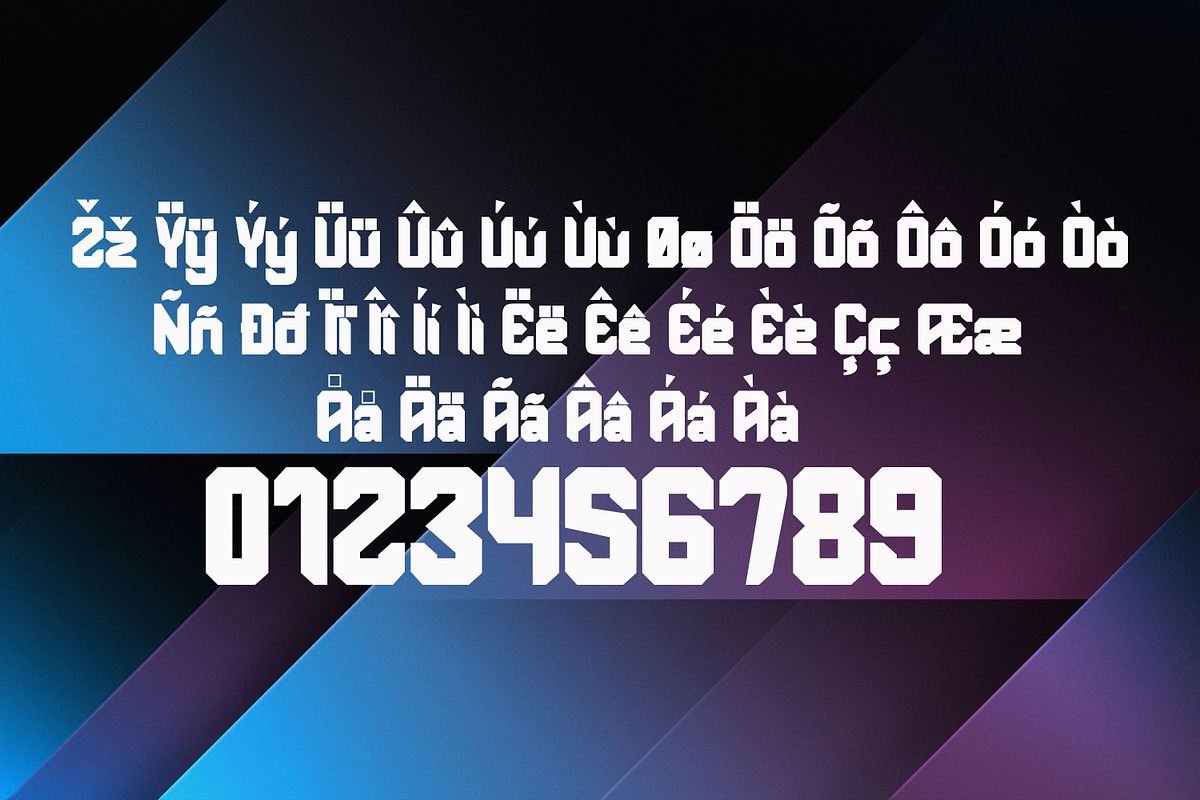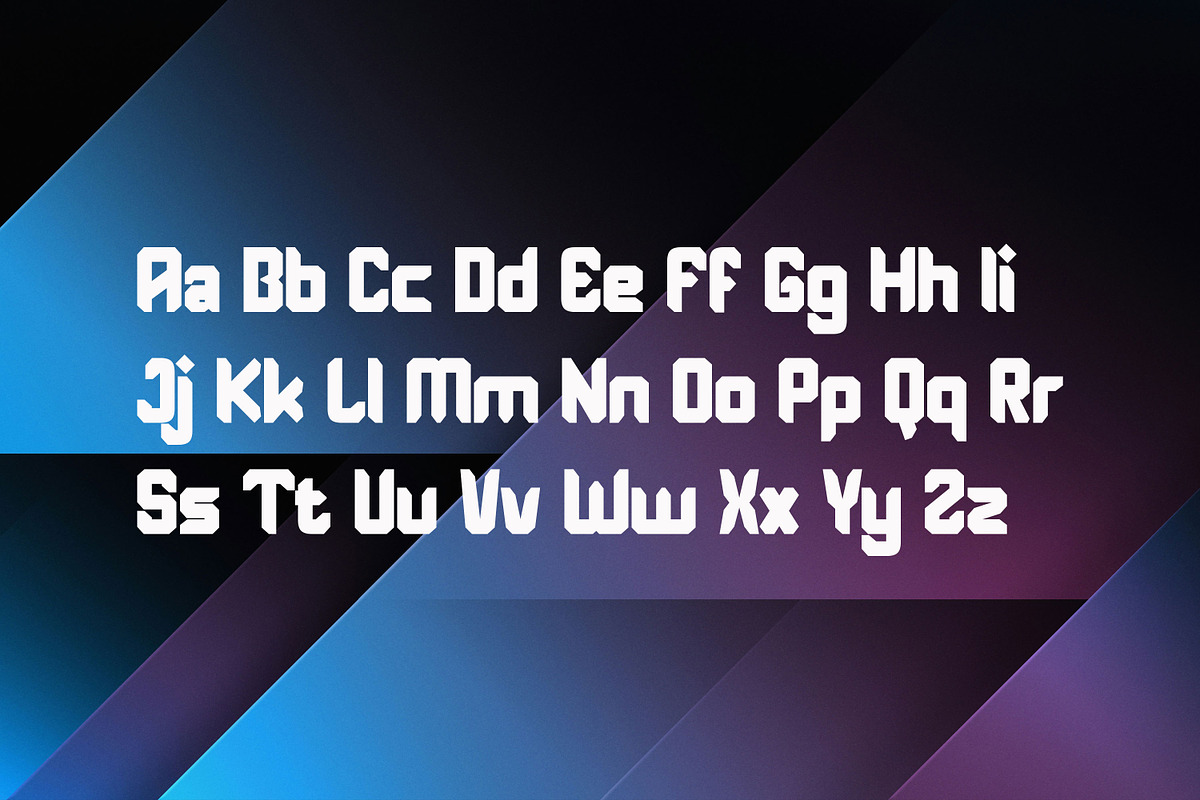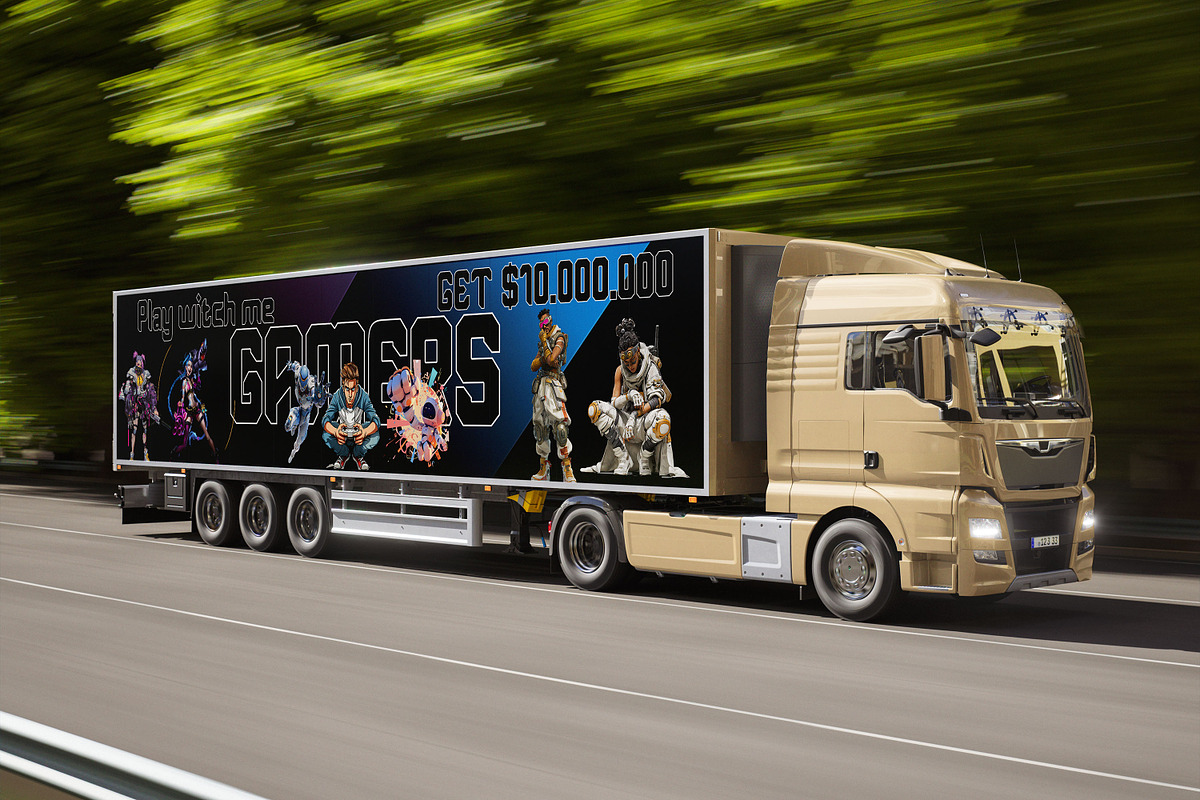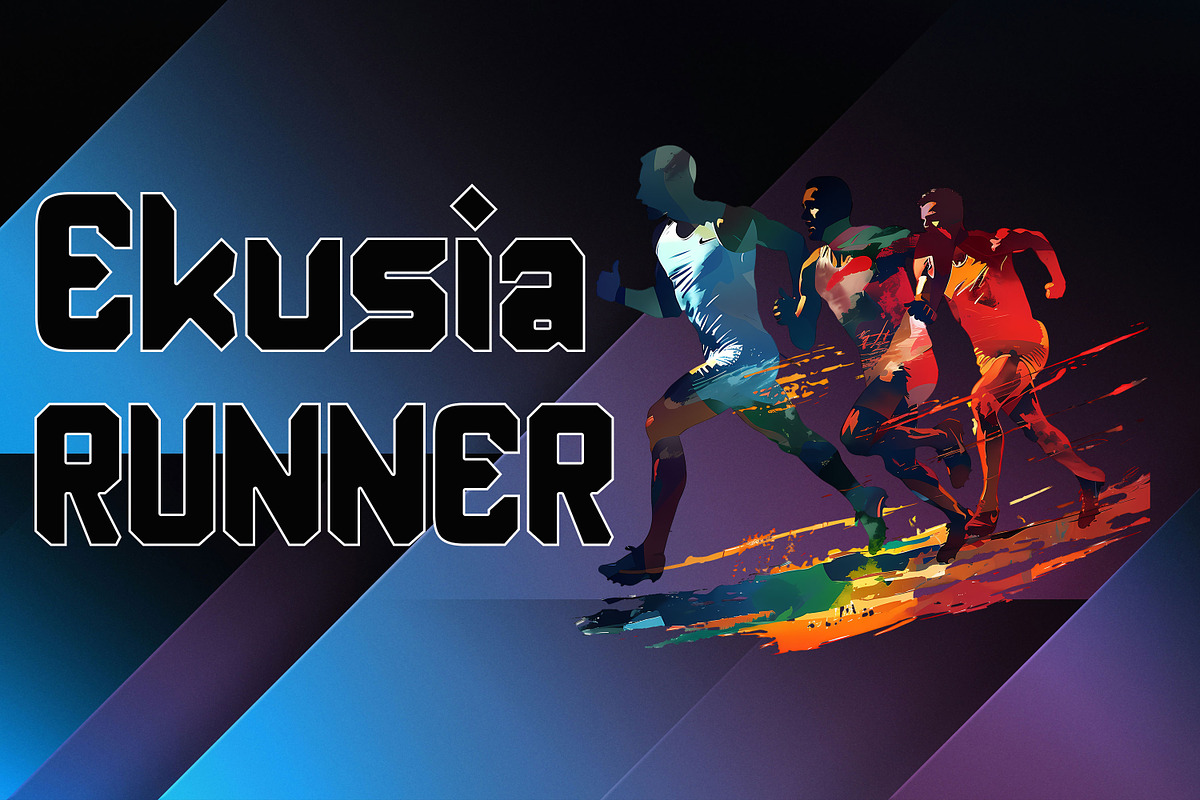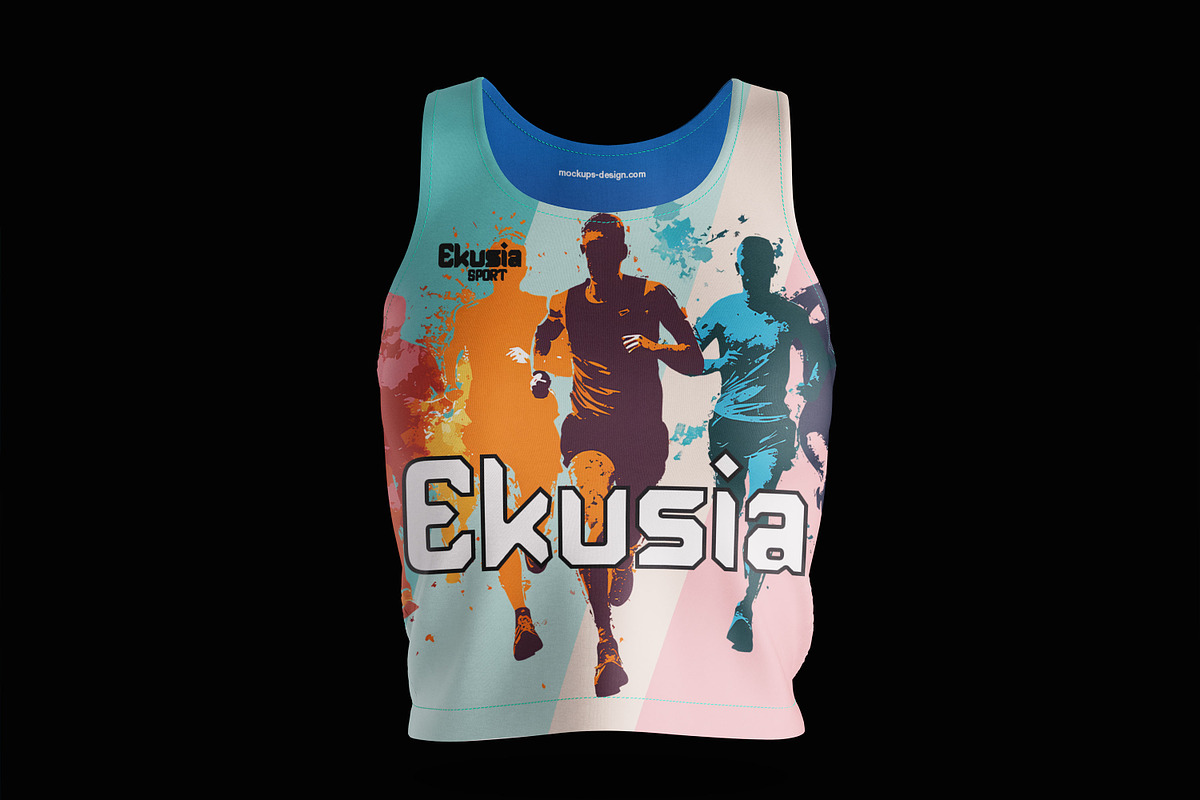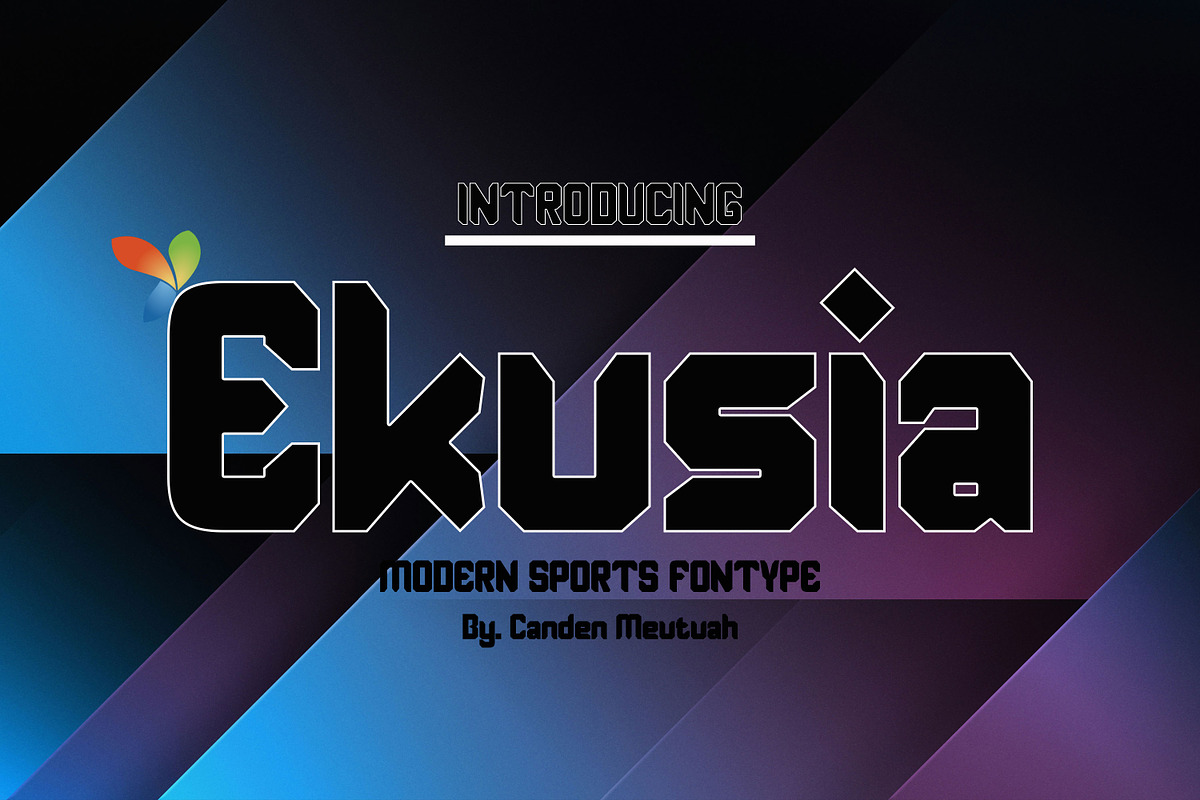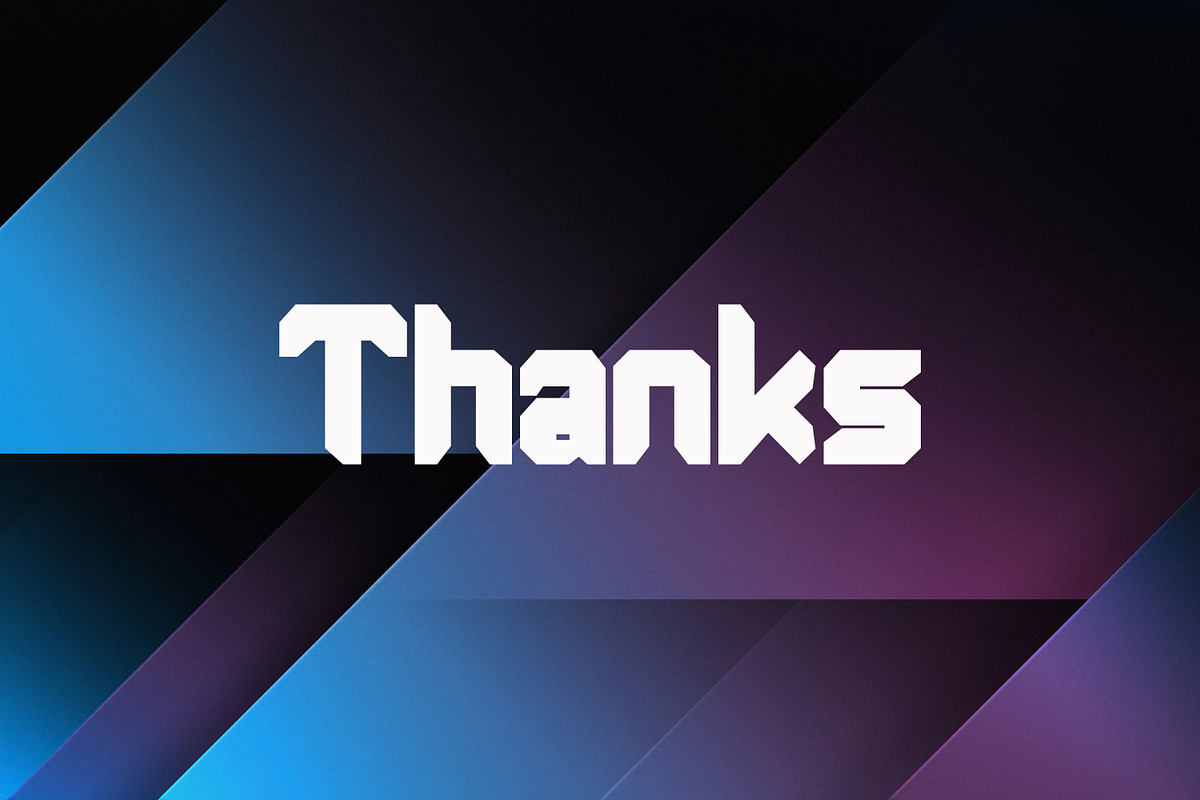
Ekusia
Ekusia is a stunning sports font with wide, bold letters and a modern, dynamic design. This font is perfect for high-speed car racing titles, running competitions, cycling, automotive game logos, monograms, and other sports titles that use bold fonts, or posters, logo designs, editorial titles, album covers, and fashion branding. This font attracts attention with its distinctive touch. It also offers other modern and dynamic text.
Ekusia excels in readability and size, creating an effect of power, thickness, and speed. Designed as a fast and dynamic font, but with a slightly different font design, check it out and get it now.